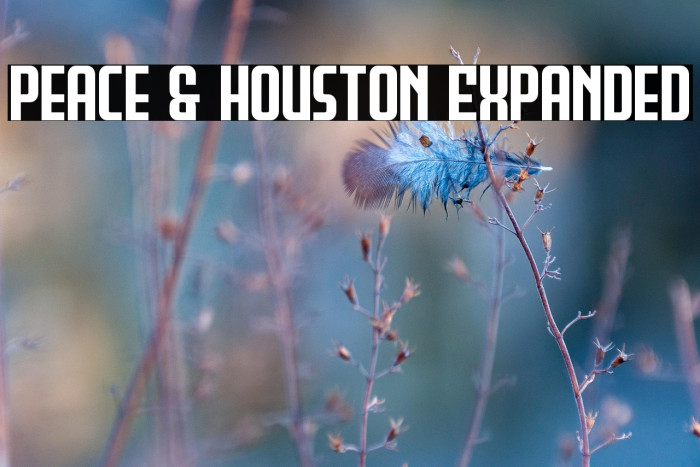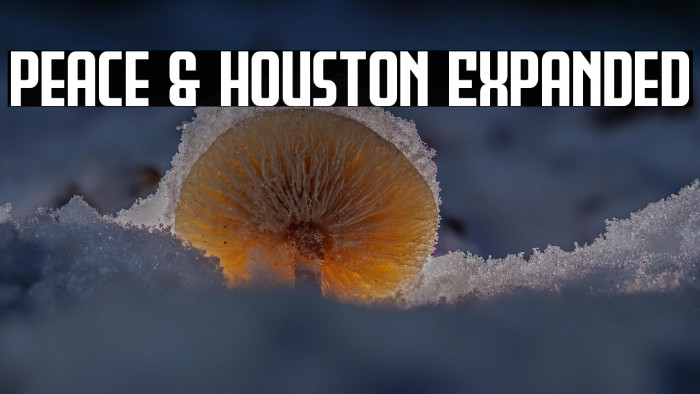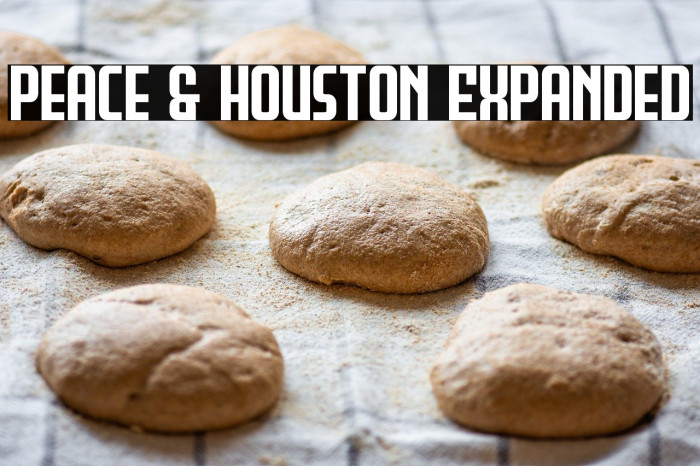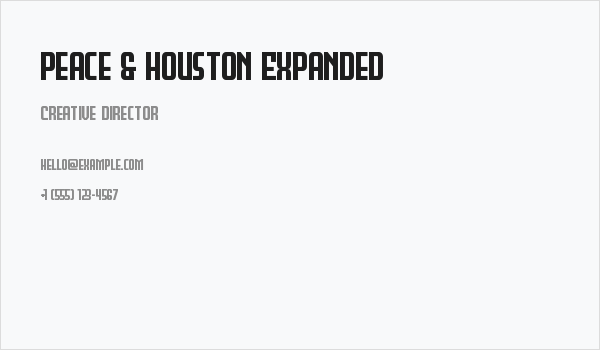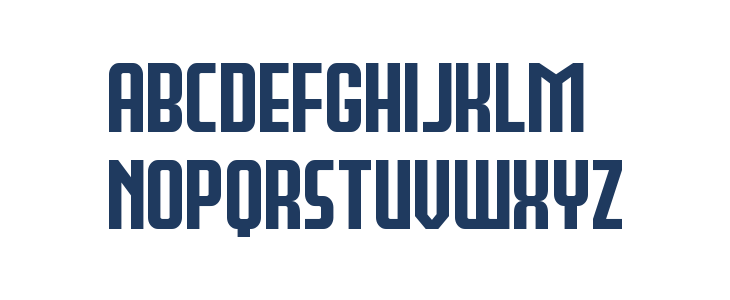
Peace & Houston Expanded Font
Peace & Houston Expanded Description
This font features a bold and geometric design with a distinctly modern and industrial feel. The characters are constructed with straight lines and sharp angles, giving them a strong and assertive appearance. The uppercase letters are uniform in height, while the lowercase letters maintain a consistent style that complements the uppercase. The numerals are clear and legible, matching the overall robust aesthetic. Special characters are designed with the same boldness, ensuring consistency across all glyphs. This font's expanded width and solid structure make it ideal for impactful and attention-grabbing designs.
Proposed ProjectsIdeal for branding, posters, headlines, and any design requiring a strong visual impact.